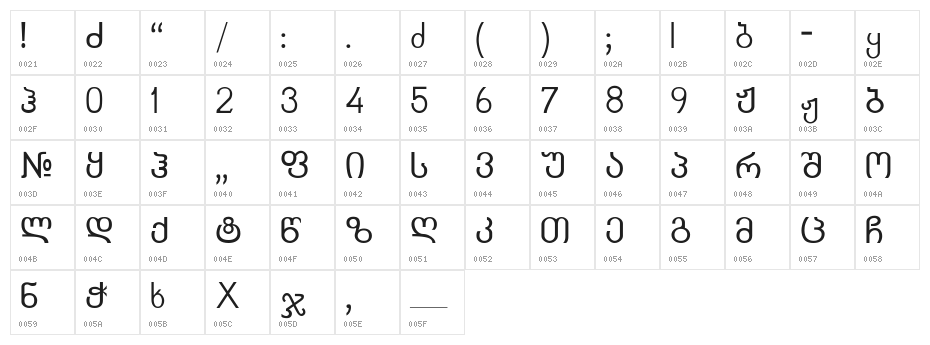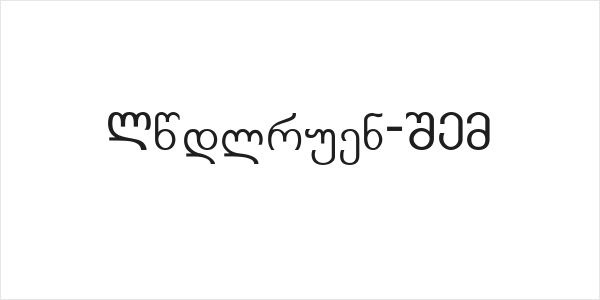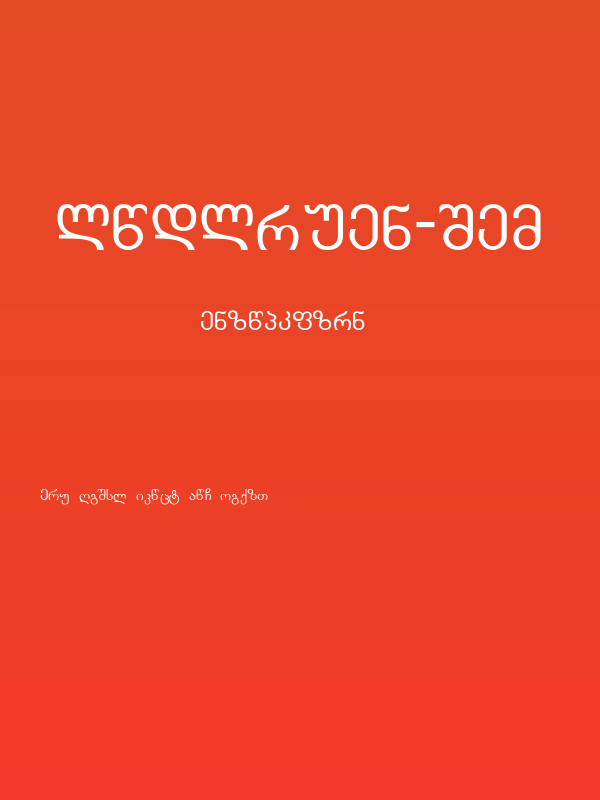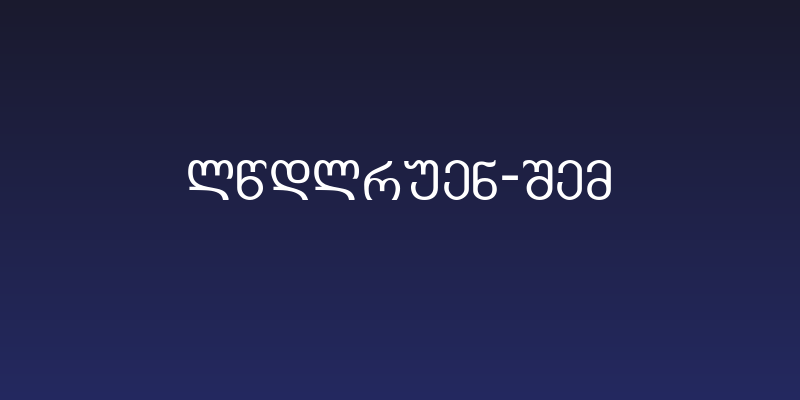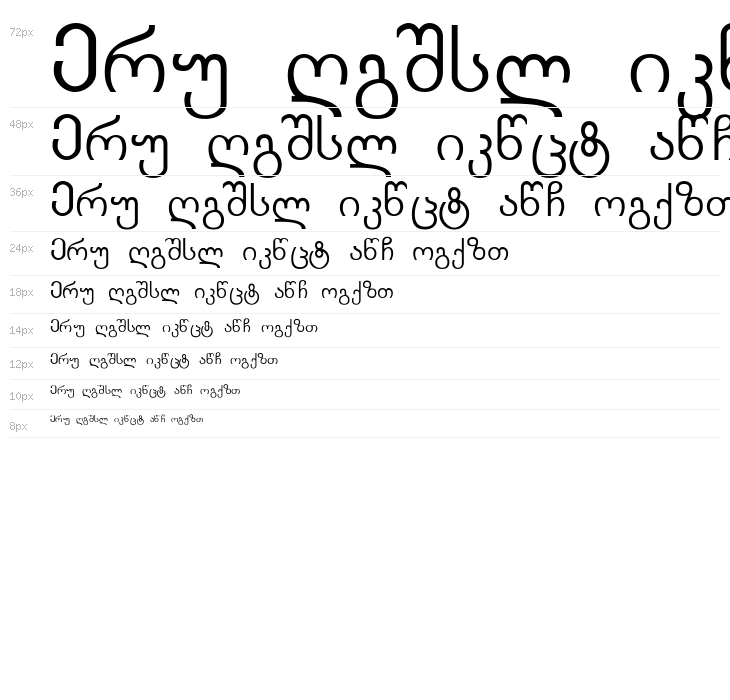
Kolkhety-ITV Font
Kolkhety-ITV Description
This font features a unique and modern design with a focus on clean, rounded shapes and smooth curves. The characters are well-balanced, offering a harmonious blend of geometric and organic elements. The numerals are distinct and easy to read, while the special characters maintain the font's overall aesthetic. The font's style is versatile, making it suitable for a variety of applications. Its clear and legible design ensures readability across different sizes and contexts.